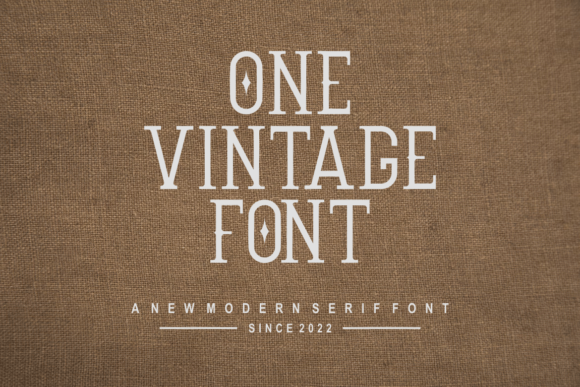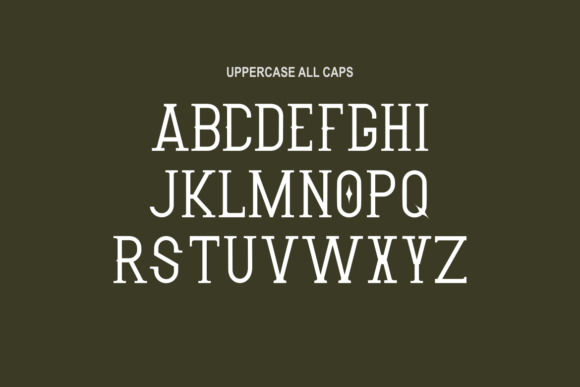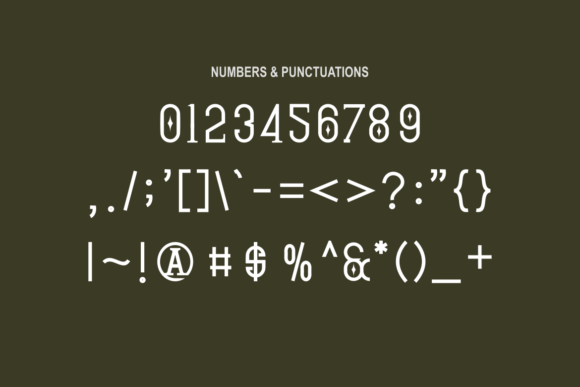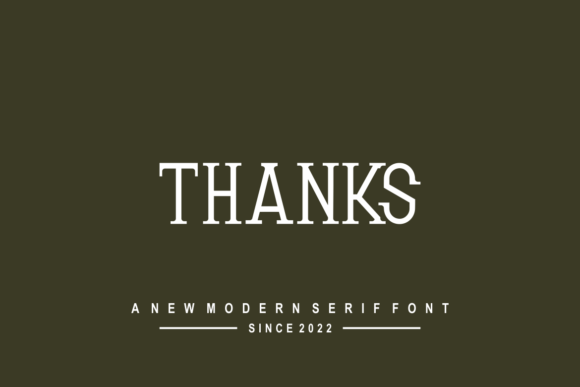
Introduction to Onevine Font
Have you ever found yourself stuck in a creative rut, unable to find the perfect font to bring your vision to life? It’s a frustrating feeling, especially when you’re working on a high-stakes project and every detail matters. That’s why discovering the Onevine Font was a game-changer for designers everywhere.
This stylish and modern serif font is a treasure trove of design possibilities, offering a level of sophistication and elegance that’s hard to find in other fonts. With its clean lines and high-quality aesthetic, the Onevine Font is perfect for a wide range of creative projects, from logos and branding to brochures and website design.
Key Features of Onevine Font
- High-quality design for creative projects with a transparent background, ideal for use in graphic design, digital art, and more.
- Unique, elegant design that adds a touch of sophistication to any creative project.
- Perfect for use in logos, typography, and other design elements where a high-quality font is required.
Honest Review: Onevine Font
I recently came across the Onevine Font, and I was intrigued by its modern and elegant design. This free download is perfect for any creative project that requires a high-quality font. As a designer, I appreciate the versatility of this font and how easily it can be integrated into a design resource.
The Onevine Font has a transparent background, which makes it ideal for use on various backgrounds and designs. I was impressed by the clarity and legibility of the font, making it suitable for both digital and print media.
- High-quality design with a modern aesthetic
- Transparent background, allowing for versatility in design
- Excellent legibility and clarity
- Not as extensive as some other font collections
- May not be suitable for complex or multi-font projects
Overall, the Onevine Font is a great addition to any designer’s toolkit. While it may have some limitations, its high-quality design and versatility make it an excellent choice for many creative projects.
Tips for Getting the Most Out of Onevine Font
For the best results, use the Onevine Font in conjunction with other high-quality design elements. Experiment with different font sizes, colors, and arrangements to create visually appealing designs. Additionally, consider combining the Onevine Font with other fonts to add depth and variety to your creative project.
The Onevine Font is ideal for various design projects, including logos, brochures, social media graphics, and presentations. Its versatility and high-quality design make it a valuable resource for designers and creatives alike.